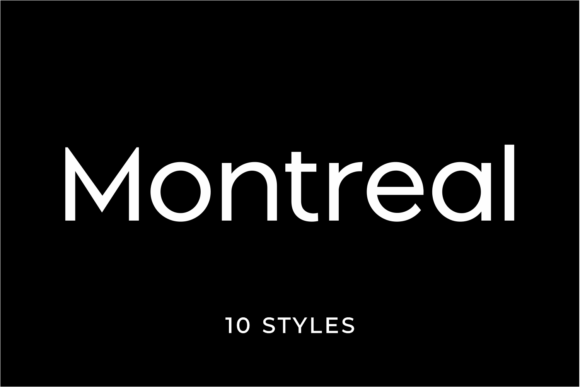
Introducing Montreal Font, the ultimate choice for designers seeking to make a bold and captivating statement. With its stunning geometric sans-serif design, Montreal offers a versatile range of 10 distinct styles that will elevate your design projects to new heights.
Crafted with meticulous attention to detail, each style within the Montreal typeface family brings a modern and minimalist aesthetic to your typography. The clean lines, sharp angles, and even proportions of Montreal's letterforms exude a contemporary and sophisticated look, perfect for those who crave a sleek and polished design.
No matter the nature of your project, Montreal has you covered. From creating a sleek corporate identity to designing a futuristic tech project, or even crafting a minimalist editorial layout, Montreal offers a variety of styles that cater to your every design need.
Unleash your creativity with Montreal's range of styles, from the bold and eye-catching Montreal Black to the elegant and understated Montreal Light. Each style seamlessly combines geometric precision with legibility, ensuring your message shines through with clarity and style.
But Montreal is more than just a versatile font. It is a powerful tool that empowers designers to make a lasting impression. Whether you're designing a poster, website, logo, or any other visual content, Montreal's 10-style font family provides the flexibility and visual impact you need to captivate your audience.
Created by Unitype, Montreal is not just a font; it is an asset that adds value to your creative projects. Its versatility and modernity make it the go-to choice for designers who strive to stand out from the crowd. Let Montreal be your secret weapon in creating designs that leave a lasting impact.